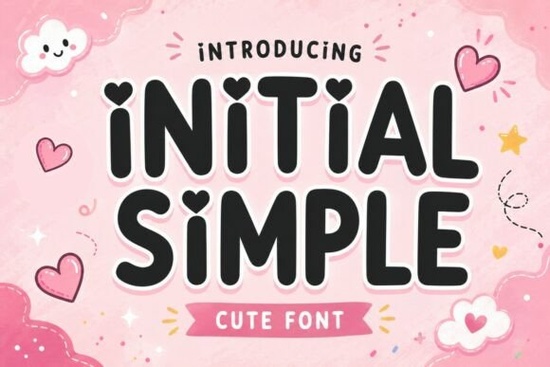
You often need a typographic choice that feels personal rather than perfect. That is where Initial Simple becomes a valuable asset for anyone creating visual materials. This typeface brings a warm, handmade quality to digital and physical layouts without sacrificing legibility. It serves as an excellent tool for designers who want to infuse joy and approachability into their brand identity or event communications.
Why a Handmade Look Works for Your Projects
When we look at screens all day, sans-serif and geometric fonts often dominate. Switching to a display font with organic curves breaks that monotony effectively. Initial Simple features smooth rounded characters that mimic the strokes of a marker or brush pen. The inclusion of subtle heart accents adds a layer of affection that standard typefaces simply cannot convey.
This aesthetic is not just about decoration; it communicates trust and friendliness instantly. When a parent sees a font like this on a flyer, they feel a sense of care. For small business owners, this translates to a welcoming atmosphere that encourages customers to engage. Unlike rigid block letters, these curves suggest movement and life, making static images feel dynamic and alive.
Ideal Applications for Display Type
Designers frequently struggle to match a font to a specific niche. This particular set excels in environments where emotion matters more than strict formality. Consider a baby shower invitation where every detail needs to feel tender and safe. Initial Simple handles headlines beautifully while remaining distinct enough to read clearly at a distance.
Beyond events, the font works exceptionally well for merchandise and packaging. Print-on-demand sellers utilize this style for t-shirt graphics because the rounded shapes sit comfortably on fabric curves. It also shines in classroom materials, helping educators create worksheets that children perceive as fun rather than demanding. Social media posts gain attention through this cheerful presentation, standing out in crowded feeds.
- Nursery decorations: Softens nursery decor items.
- Greeting cards: Adds a handcrafted touch to messages.
- Stickers and labels: Ensures text remains legible on small surfaces.
- Craft paper designs: Complements scrapbooking layouts effortlessly.